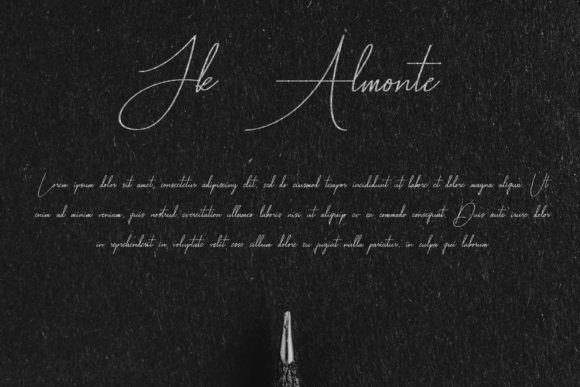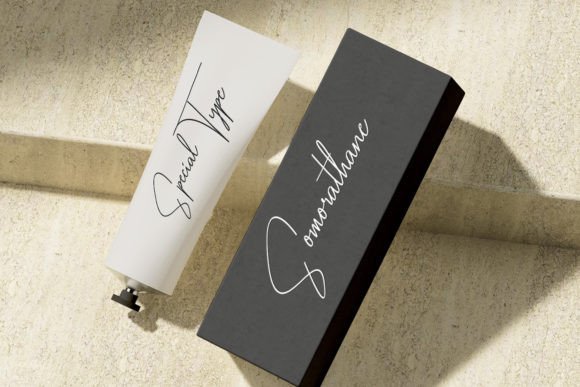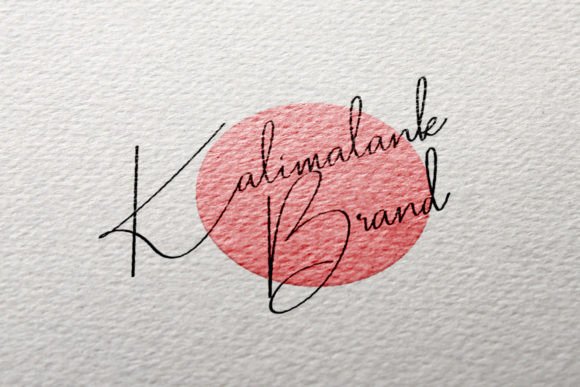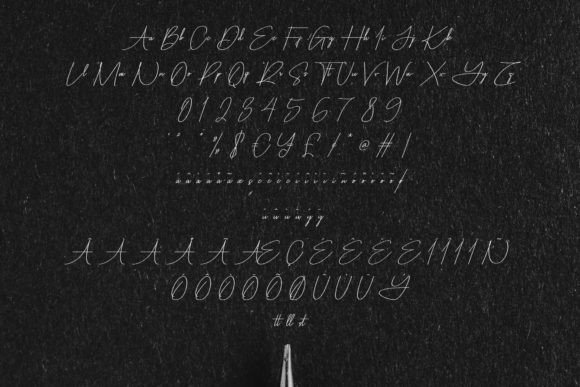
The Charm of Hermintosh Font: A Designer’s Delight
I still remember the time I was working on a wedding invitation project, and my client asked for a font that was both elegant and charming. I scoured the internet, tried out countless fonts, but nothing seemed to fit the bill. That was until I stumbled upon Hermintosh Font. It was love at first sight! 💕
Hermintosh Font is a beautiful, handwritten font that feels equally charming and elegant. It looks stunning on wedding invitations, thank you cards, quotes, greeting cards, logos, business cards, and every other design that needs a handwritten touch.
• ✨ Elegant and charming handwritten feel
• ✅ Perfect for wedding invitations, greeting cards, and quotes
• ✅ Highly legible, even at small font sizes
• ✅ Beautifully crafted with attention to detail
While Hermintosh Font is an excellent choice for many design projects, there are a few things to keep in mind:
• ⚠️ May not be suitable for body text or long-form content
• 🤔 Limited availability of stylistic alternates and glyphs (but still offers some nice OpenType features)
One of the best things about Hermintosh Font is its OpenType features and glyphs. These allow you to customize the font to suit your design needs. For example, you can use stylistic alternates to create a more varied and interesting text layout. To access these features, you’ll need to use a design platform that supports OpenType, such as Adobe Photoshop or Illustrator.
A Brief Backstory: The Inspiration Behind Hermintosh Font
According to its creators, Hermintosh Font was inspired by the classic handwriting of the early 20th century. The font’s designer wanted to capture the elegance and charm of this era, while still making it suitable for modern design projects.
Q: What is Hermintosh Font?
A: Hermintosh Font is a beautiful, handwritten font that’s perfect for wedding invitations, greeting cards, quotes, and other design projects that need a touch of elegance and charm.
Q: Is Hermintosh Font suitable for body text?
A: While Hermintosh Font is highly legible, it’s not recommended for body text or long-form content. It’s best used for headings, titles, and short paragraphs.